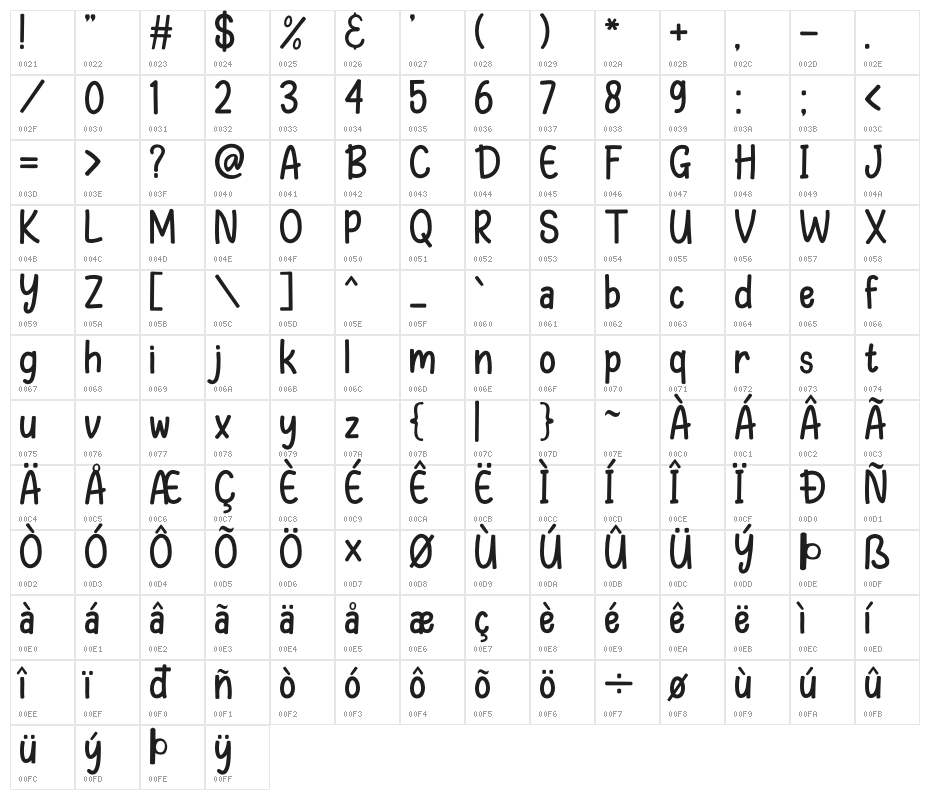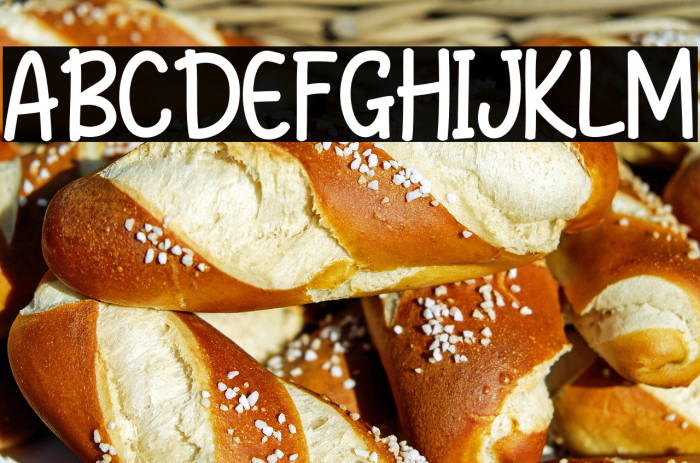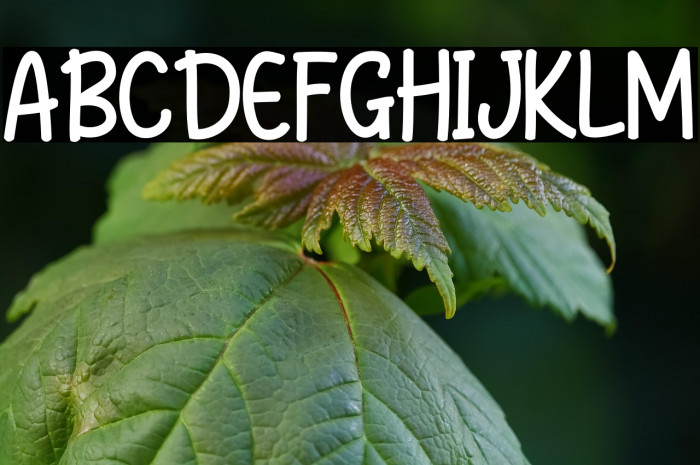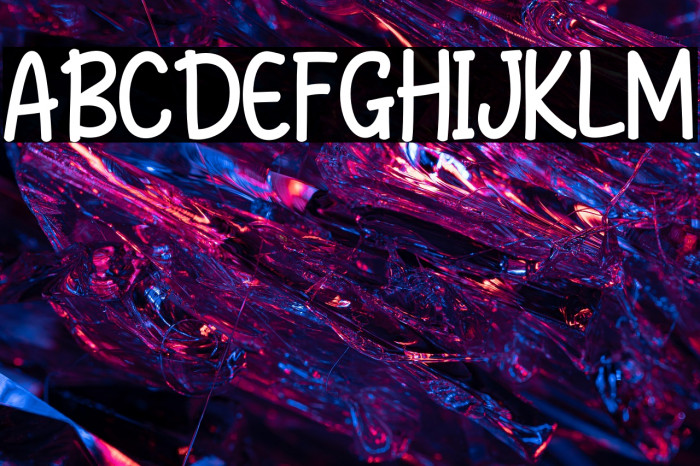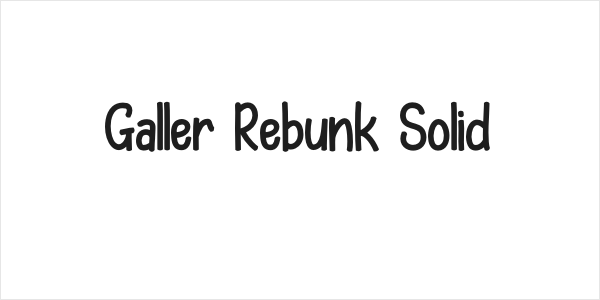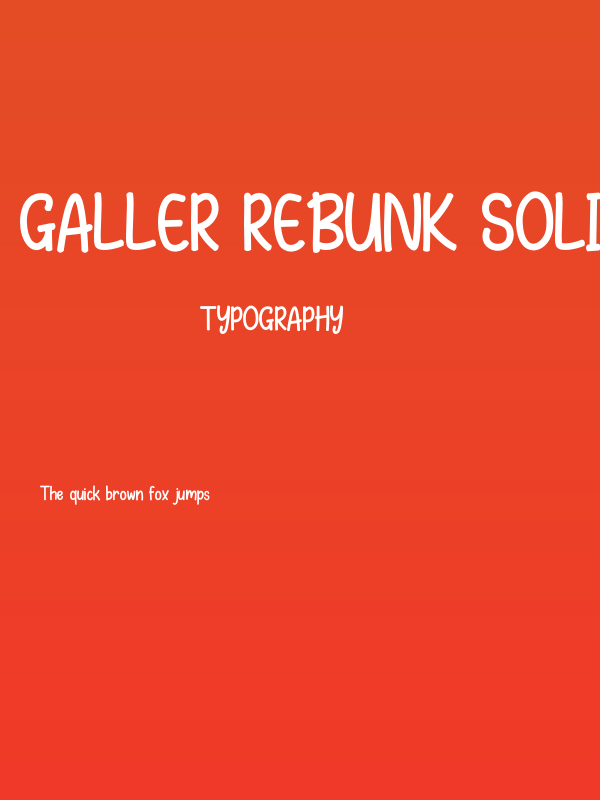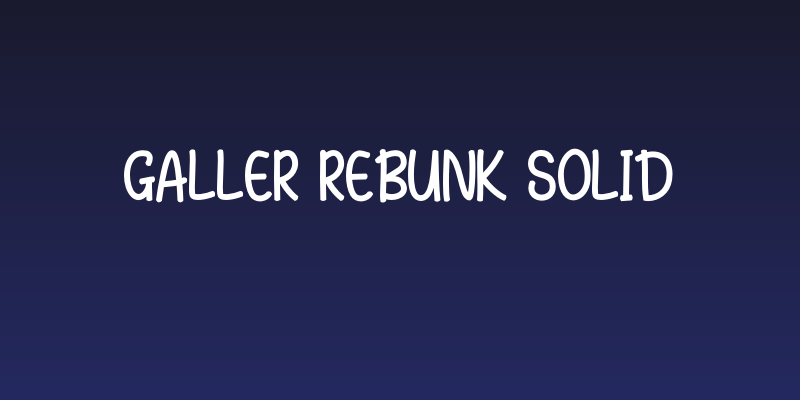
Galler Rebunk Solid Font
Galler Rebunk Solid Description
This font features a playful and casual handwritten style, characterized by its rounded and smooth letterforms. The uppercase and lowercase letters maintain a consistent flow, with slightly exaggerated curves that add a whimsical touch. The numerals are bold and easy to read, complementing the overall friendly appearance. Special characters are integrated seamlessly, maintaining the font's cohesive look. The strokes are uniform in thickness, providing a balanced and approachable feel. This font is ideal for projects that require a personal and informal tone.
| Use Case | Headlines, Informal text, Branding |
| Proposed Projects | Ideal for children's books, greeting cards, casual branding, and social media graphics. |